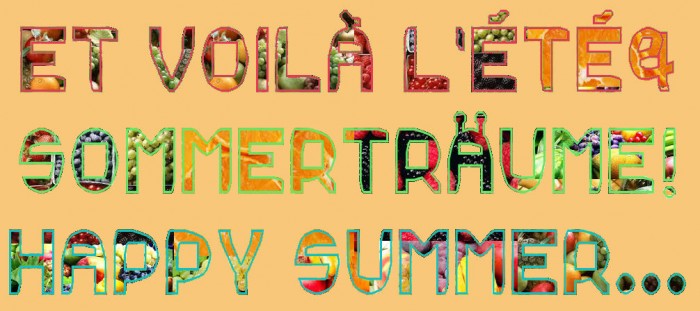
As part of my "First of month ..." series here is an outline font for July, ready to fill with juicy summer fruit and (ice) cream :)
Alternative letters with diacritics (free floating instead of attached, easier to read but less fun to look at;) ) are on the LC for French and German texts. An alternative 'S'  which doesn't quite follow the construction rules but might be of interest, is on the LC 's'.